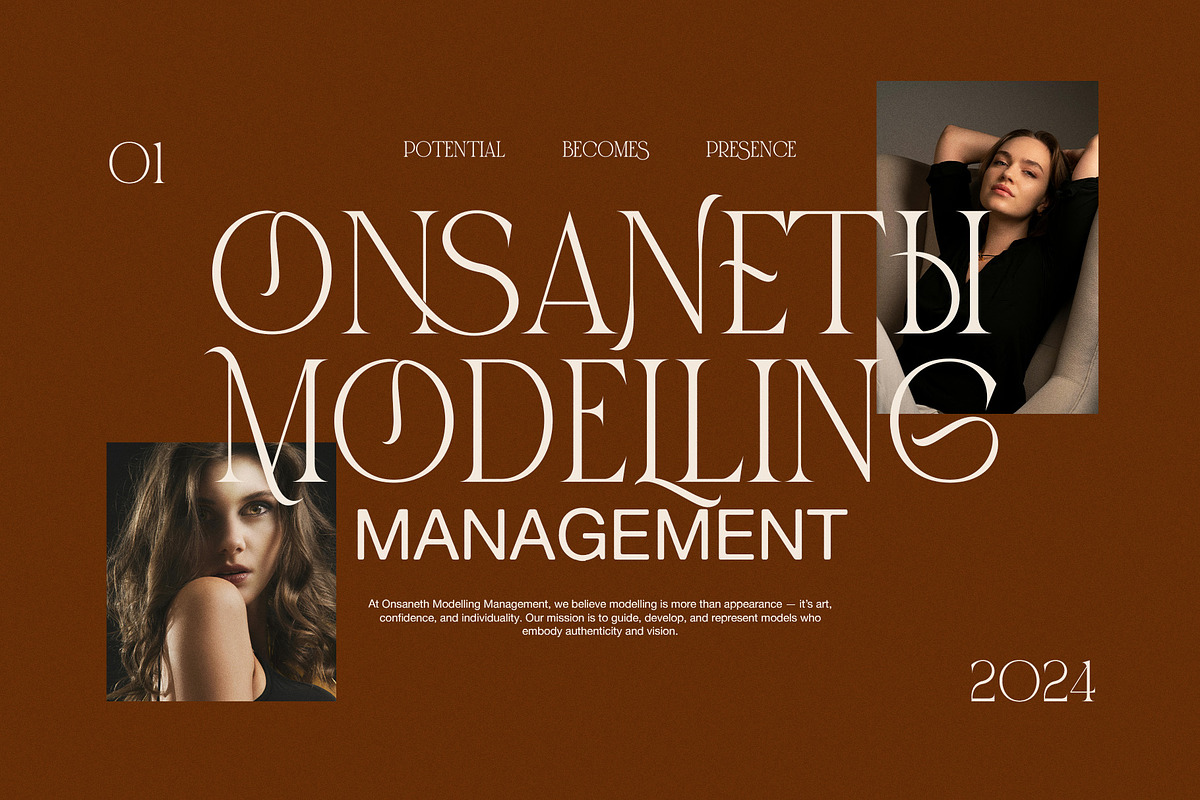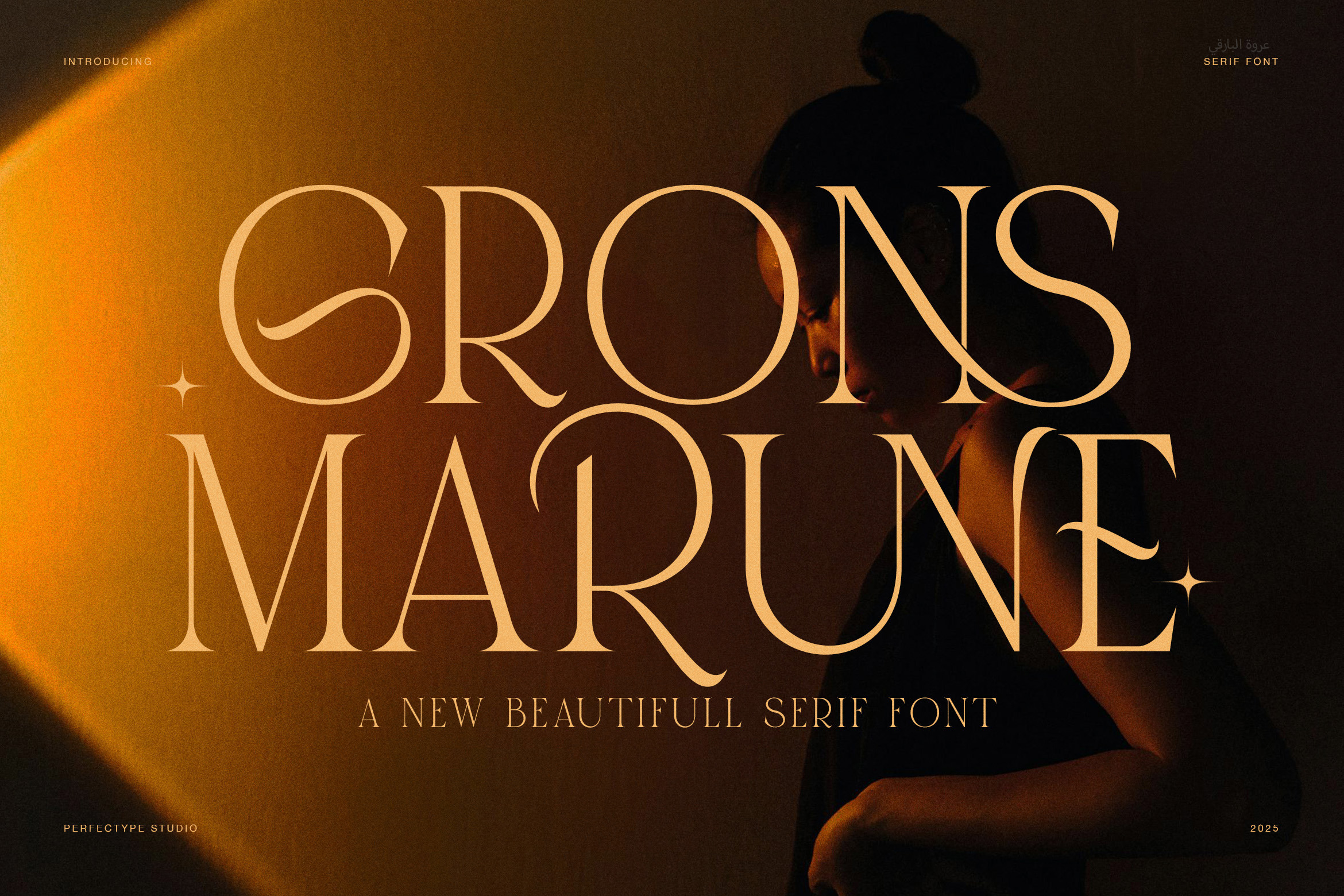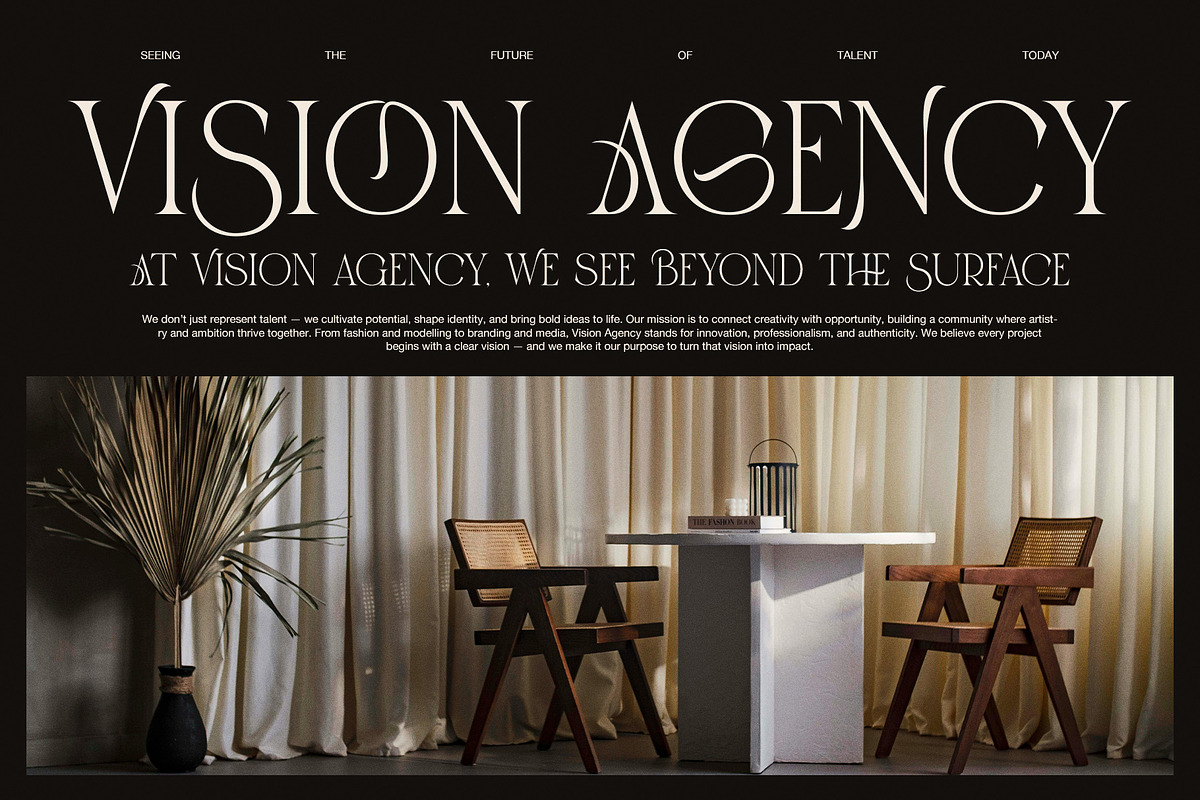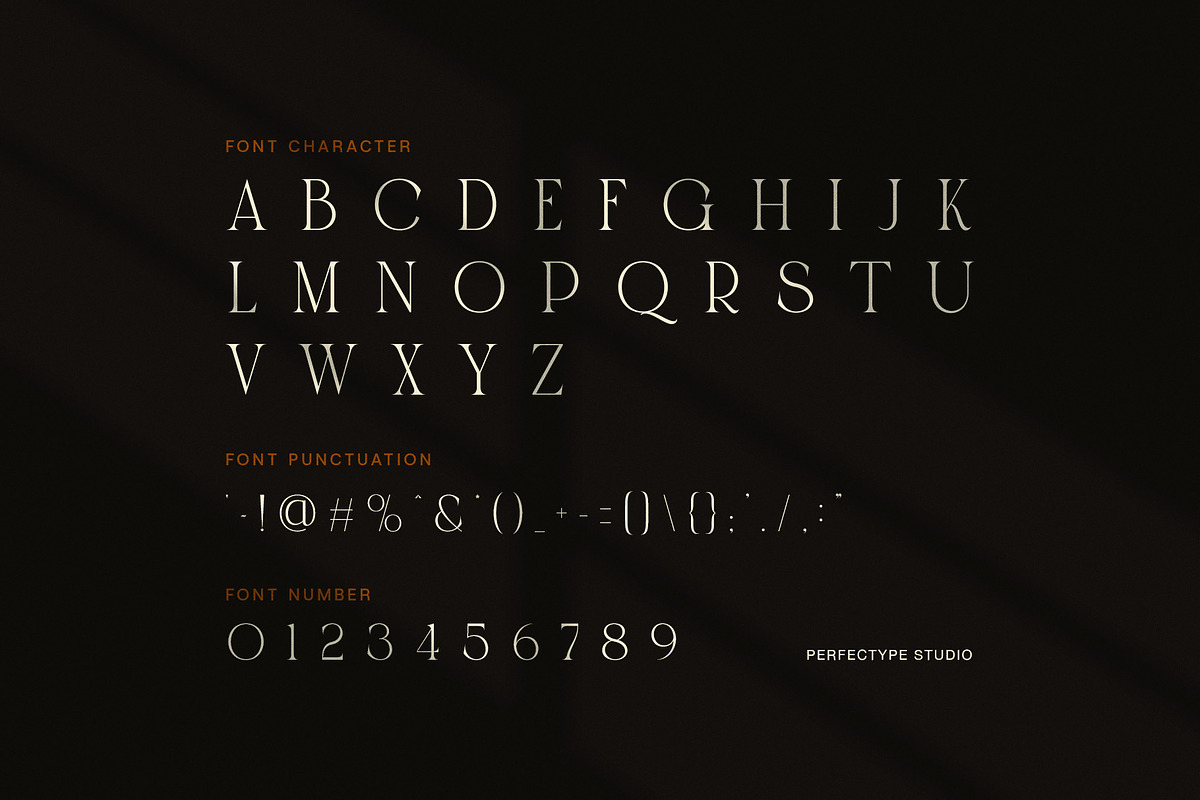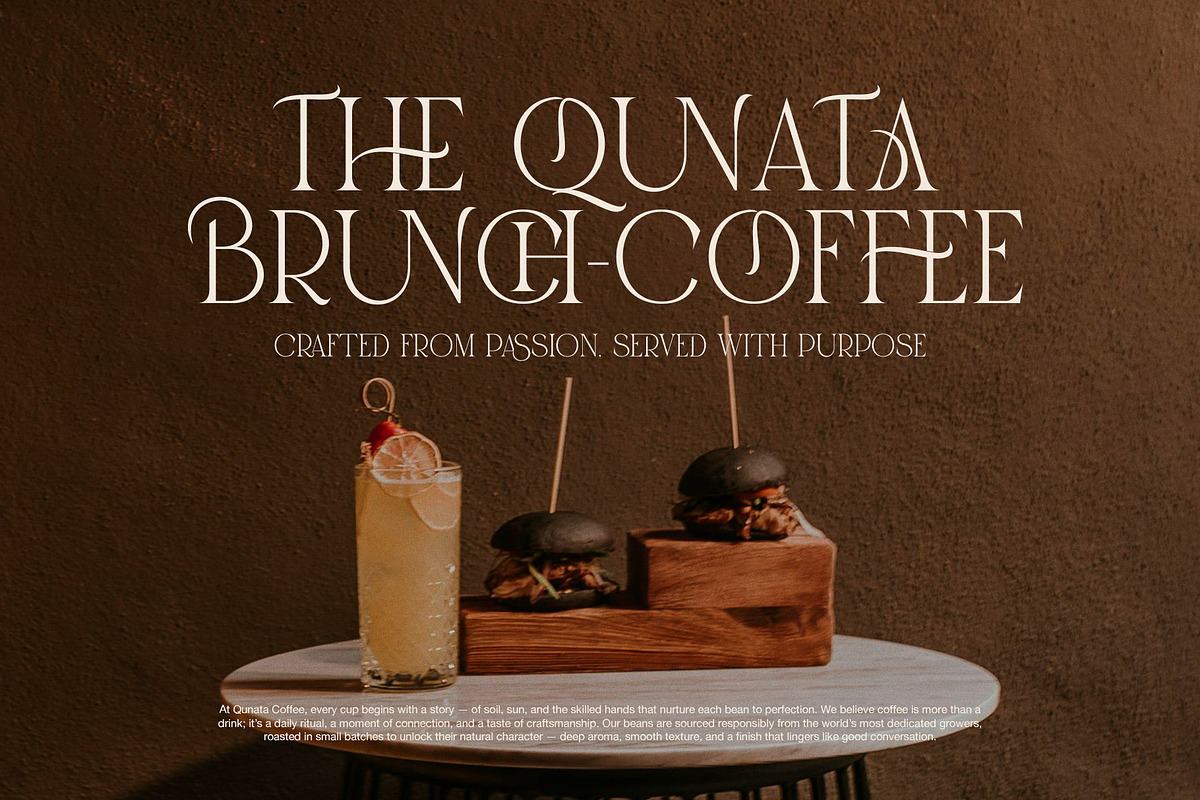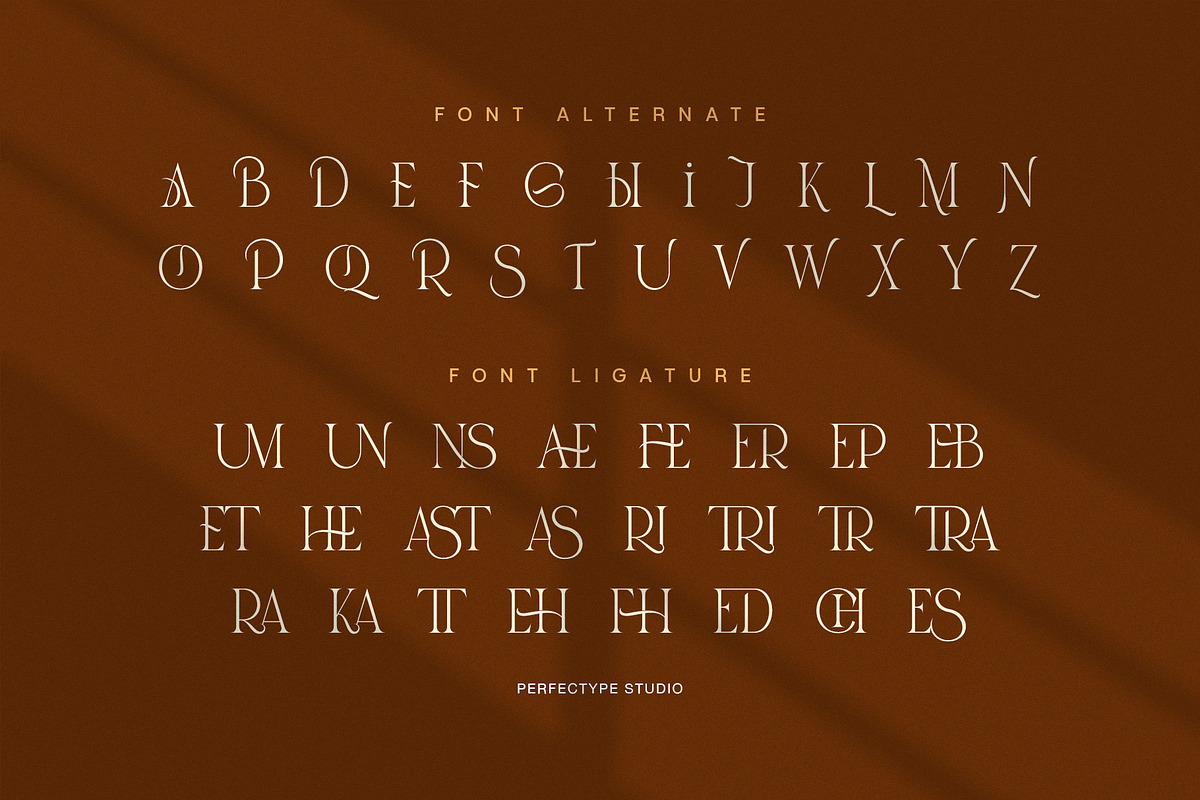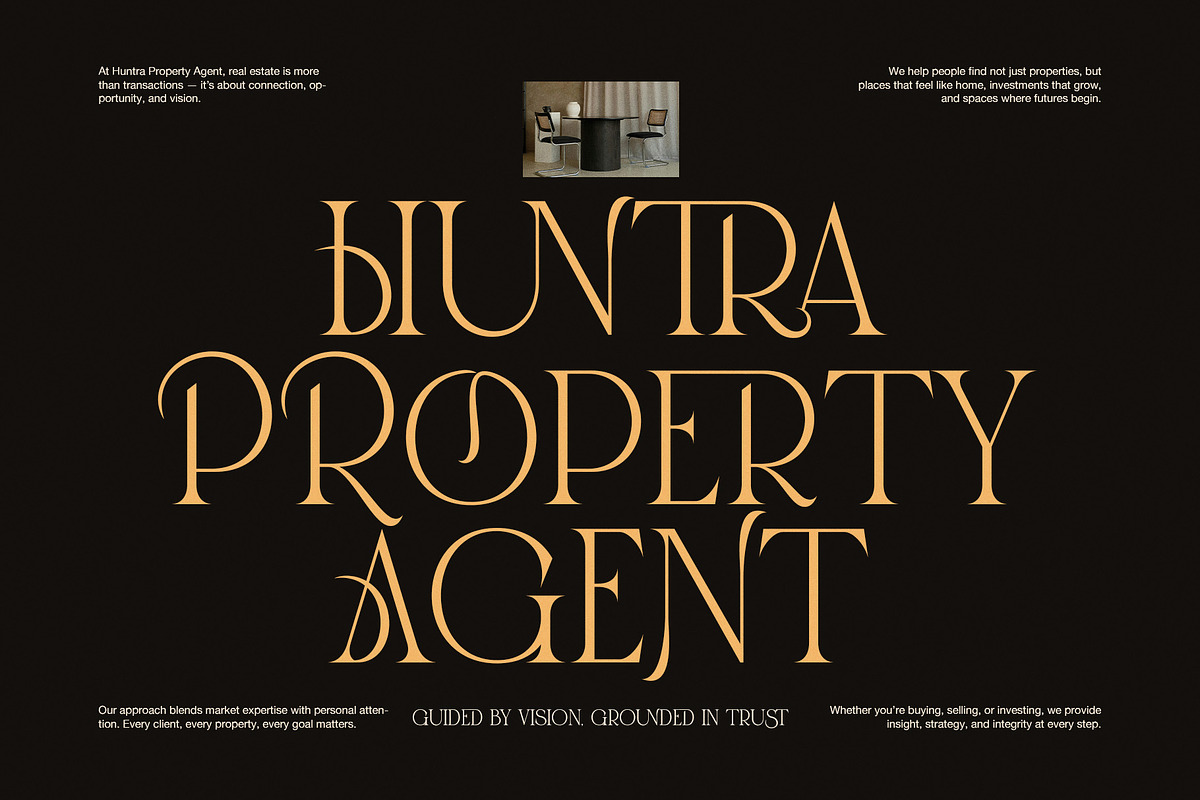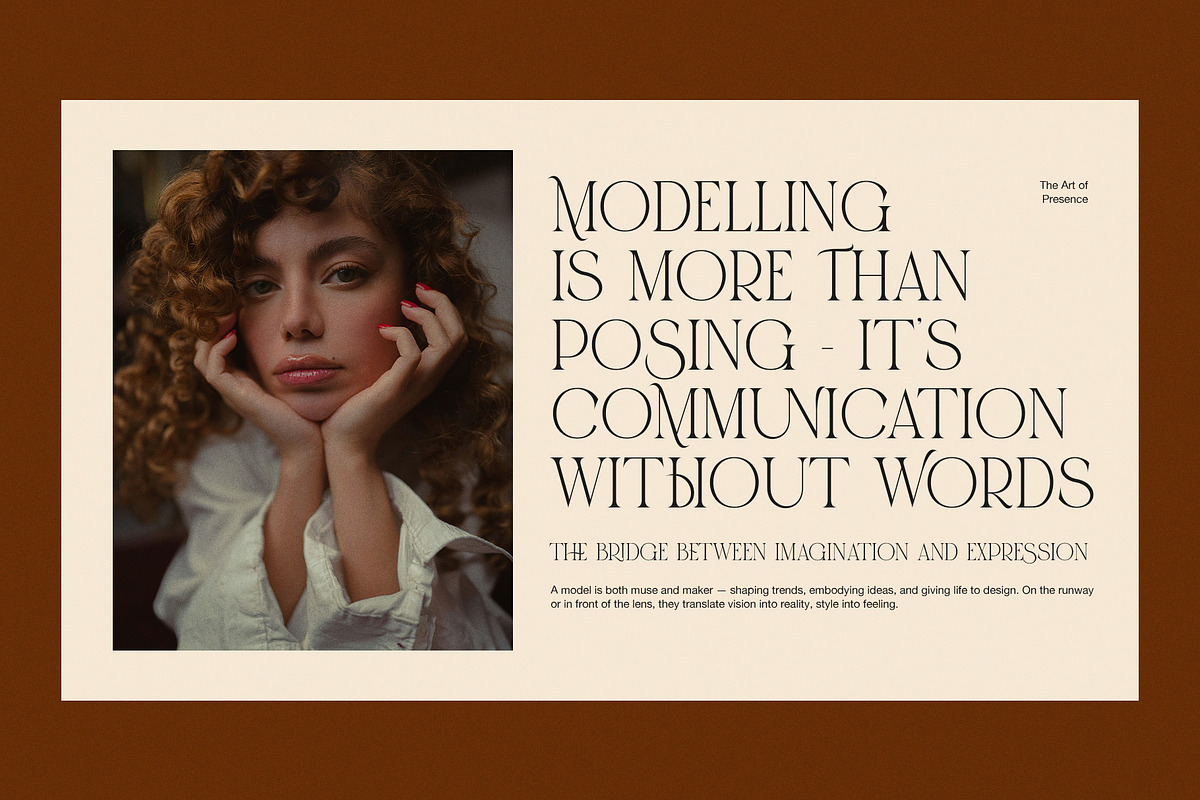
Grons Marune Elegant Serif Font
Grons Marune is an elegant serif font that blends timeless beauty with modern craftsmanship. Every curve and serif carries intention, balance, and refined artistry. Because of its delicate contrast and graceful rhythm, this typeface brings a luxurious cinematic feel to every composition.
Moreover, Grons Marune Serif Font combines sophistication with versatility. Its smooth letterforms and refined details make it perfect for both minimal and bold layouts. When used in branding, it evokes confidence and prestige, while in editorial work, it adds a touch of poetic character.
You can use Grons Marune in many creative ways:
Luxury Branding – ideal for fashion, architecture, and jewelry.
Editorial & Magazine Design – elegant for covers and headlines.
Packaging Design – perfect for cosmetics, perfumes, or handmade goods.
Invitations & Stationery – classic yet expressive for wedding themes.
Website & Social Media – polished and stylish for visual storytelling.
Each letter flows naturally, creating harmony between form and meaning. The balanced ligatures give every project a unique rhythm and elegant tone. Additionally, its alternate characters offer flexibility, helping designers achieve visual consistency across diverse media.
Grons Marune includes uppercase, lowercase, numerals, punctuation, and exquisite ligatures. It comes in OTF, TTF, and WOFF formats, ensuring smooth use across major platforms and devices. Furthermore, it supports multilingual characters, allowing global designers to express creativity without limitation.
Ultimately, Grons Marune Elegant Serif Font delivers both style and substance. It feels modern yet timeless, bold yet refined. Whether you’re crafting high-end branding or editorial layouts, this font transforms simple words into sophisticated art. Its cinematic mood and golden balance make it an unforgettable addition to your font collection.